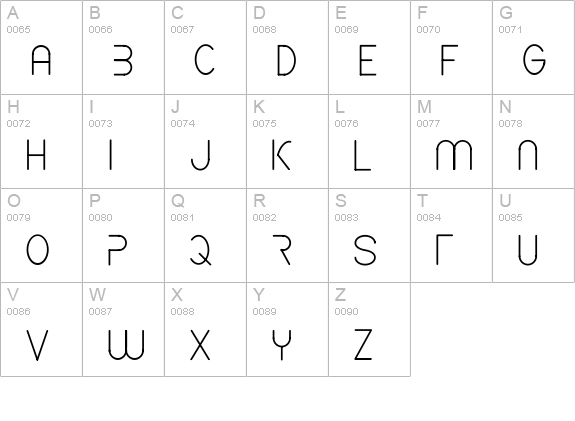
CF Spaceship Regular Font Details
CF Spaceship Regular is the standard, neutral variant in the CF typeface family \xE2\x80\x94 well suited to general body text, paragraphs, and standard typographic work.
CF Spaceship Regular is a captivating and futuristic font that will transport your designs to new dimensions. With its sleek lines and rounded edges, this font exudes a sense of modernity and innovation. Whether you're creating a sci-fi movie poster, a futuristic website, or a high-tech logo, CF Spaceship Regular is the perfect choice to bring your vision to life. The versatility of CF Spaceship Regular is truly remarkable. It can effortlessly adapt to various design projects, from bold headlines to sleek body text. Its clean and legible letterforms ensure optimal readability, even at smaller sizes. This makes it an ideal choice for both print and digital applications. One of the most remarkable aspects of CF Spaceship Regular is that it is freely available to download at FontsMarket.com. This means that you can easily access this incredible font without any cost. Whether you're a professional designer or a hobbyist, CF Spaceship Regular allows you to elevate your creations without breaking the bank. With CF Spaceship Regular, you can explore new horizons and push the boundaries of your designs. Its modern aesthetic and versatile nature make it a must-have font for anyone seeking to create eye-catching and futuristic visuals. Download CF Spaceship Regular today and unleash your imagination.